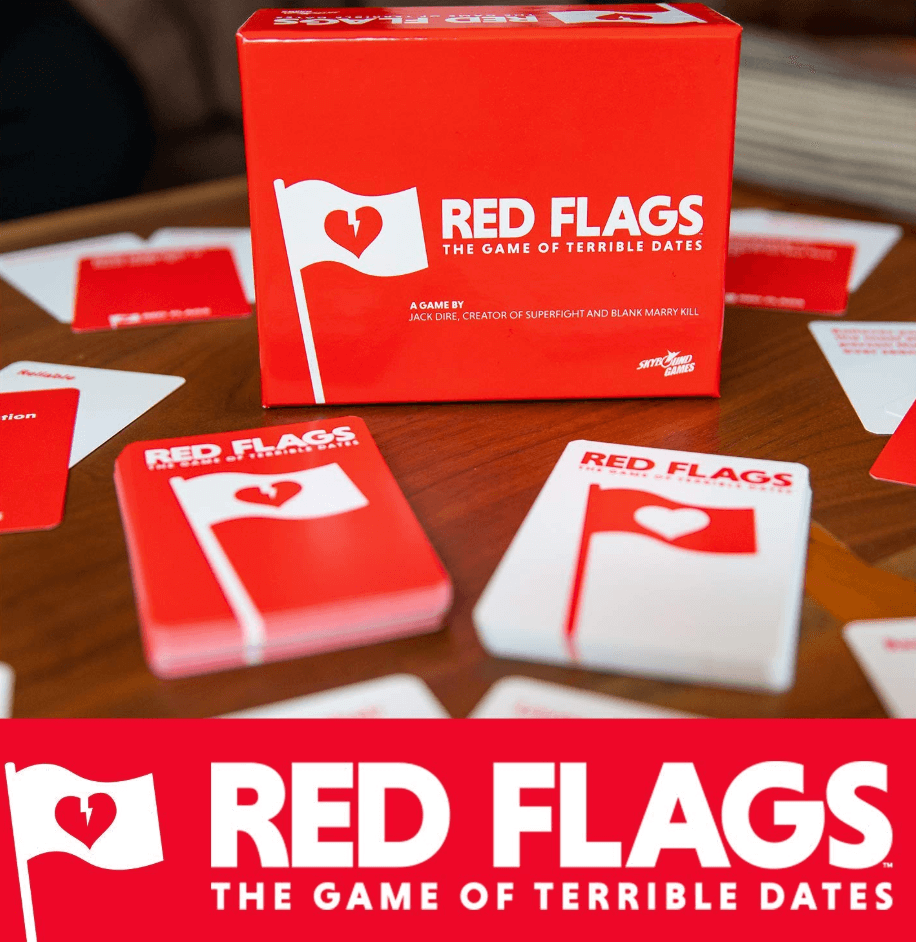
Red Flags Font
Fonts in UseRed Flags is a party game where players try to set up their friends with the best date by playing positive traits and sabotaging their opponents with negative traits. The game is published by Skybound Games and can be played with 3 to 10 players.
The logo of the card game showcases caps from Niveau Grotesk Black, a geometric typeface family created by Hannes von Döhren in 2013 and published through HVD Fonts. You can view more details about the font here.